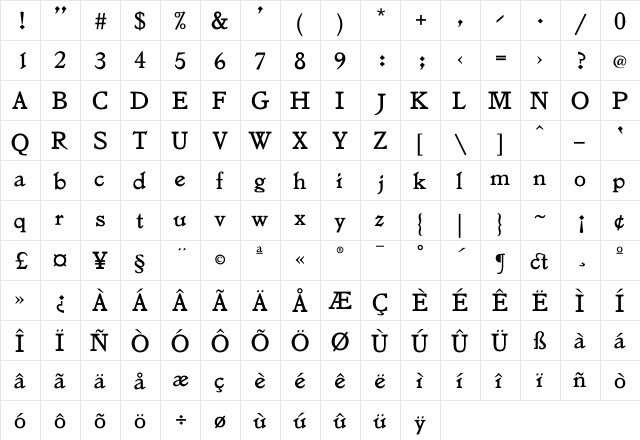
Jenson L Font Preview
Jenson L
Design Context for Jenson Typeface
Jenson takes a measured approach to typography — its balanced proportions and neutral character make it a reliable workhorse for both digital and print work.